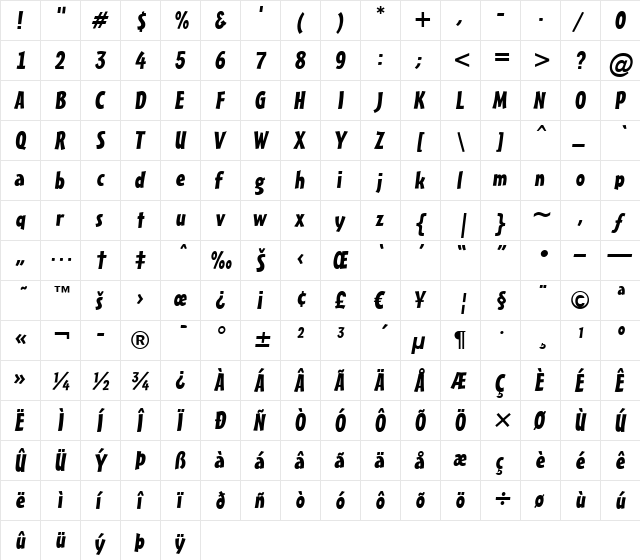
a_Frudger Italic
| Designer | W.Chufarofsky & M.Slutsker |
Design Context for a_Frudger Typeface
a_Frudger offers clean, dependable letterforms without strong stylistic allegiance, making it a practical choice for designers who need flexibility. The slanted form adds forward momentum and visual energy.